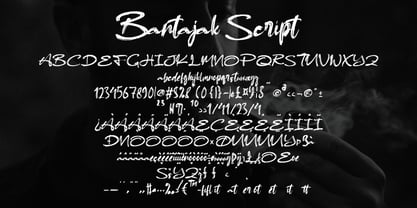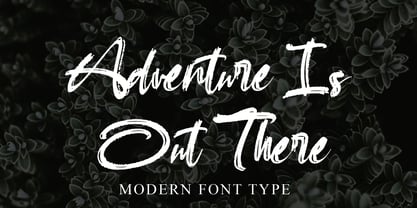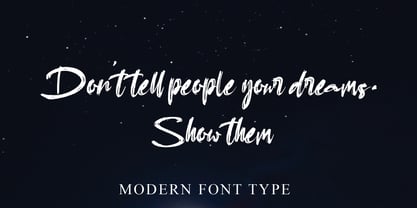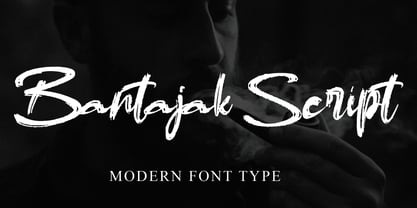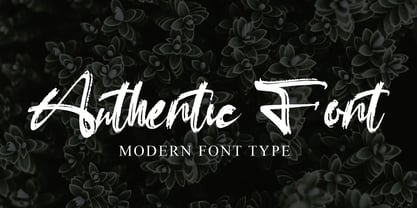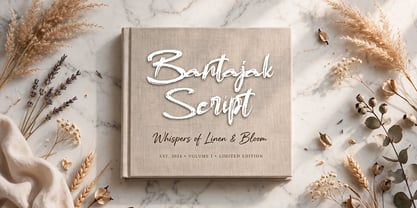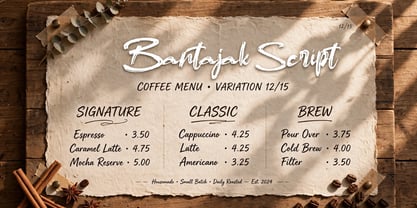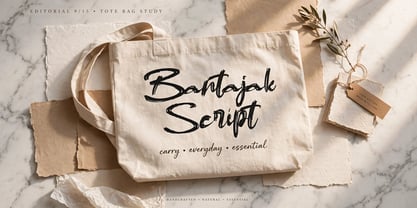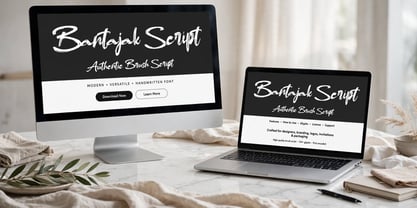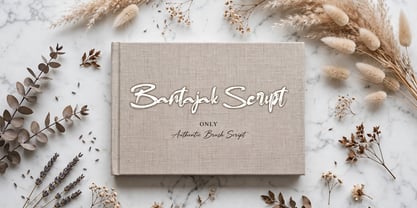
Bantajak Script
The Bantajak Script Font Family was designed by Dhoni Trihatmoko and published by Ayska. Bantajak Script contains 1 styles. More about this family
Unleash the potential of your artistic vision with Bantajak Script, defined by its contemporary cool character and relaxed handwritten elegance. This versatile font seamlessly weaves itself into dynamic blog articles, elevates digital planner designs, infuses invitations with a personal touch, and imparts a heartwarming charm to your custom greeting cards. Bantajak Script is the key that unlocks charisma in sophisticated planners, a special touch to treasured photo albums, and a stroke of creativity in bespoke decorations. Carefully designed to infuse an air of sophistication, Bantajak Script promises an extraordinary transformation, turning your online visuals from ordinary to exceptional with a personalised, exclusive charm. Submerge yourself into the realm of creativity and craft bold, memorable impressions. Master the magic of digital art as Bantajak Script turns your artistic vision into tangible spectacles